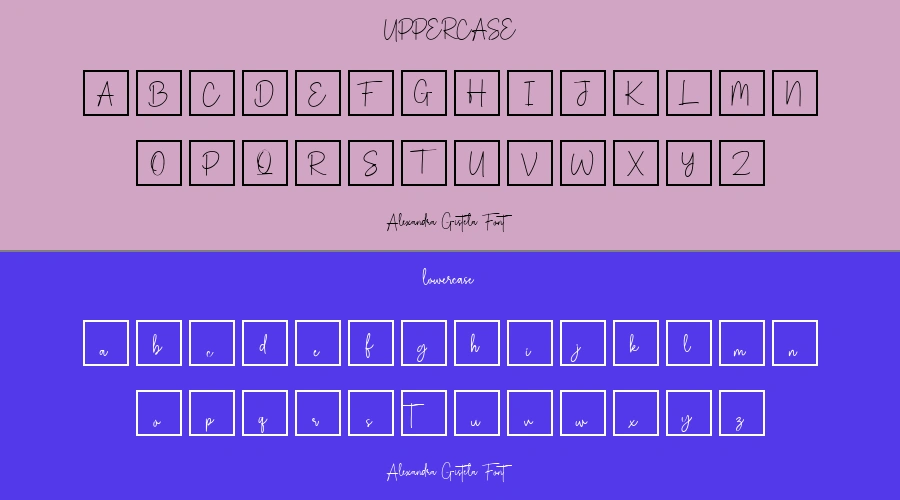
About Alexandra Gistela Font
Designed with precision, Alexandra Gistela Font merges elegant curves with functionality in every character. This versatility makes it particularly effective for digital signage, where reliability and scholarly value directly impact communication quality. Each letterform demonstrates meticulous craftsmanship.
Technical excellence shines through elements like monoline strokes and expert sets, enhancing typographic versatility. In book chapters settings, Alexandra Gistela Font proves its worth through superior print fidelity. The thoughtful execution of aperture size and character ensures professional results.
Alexandra Gistela Font |